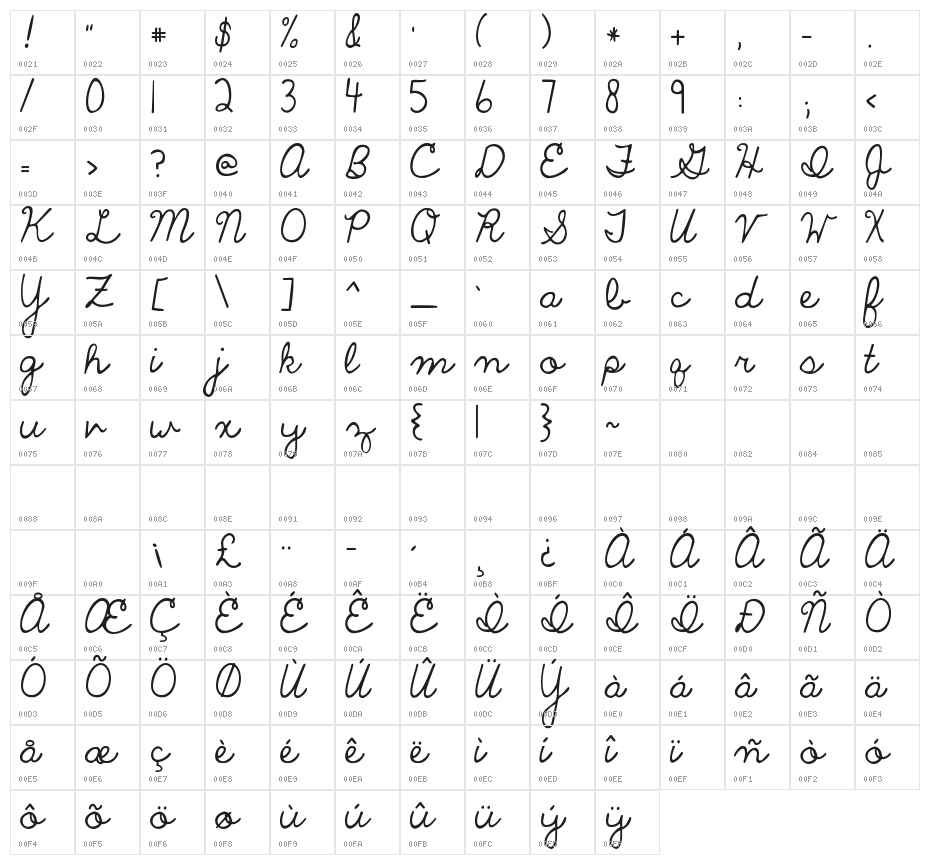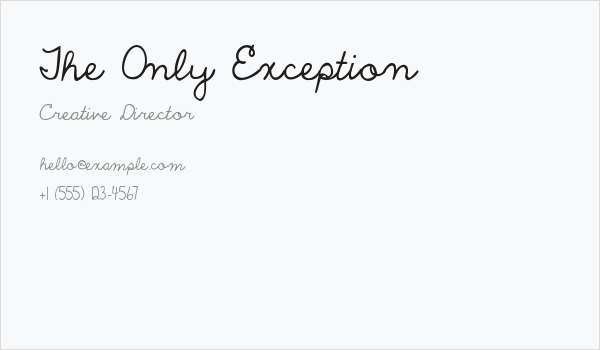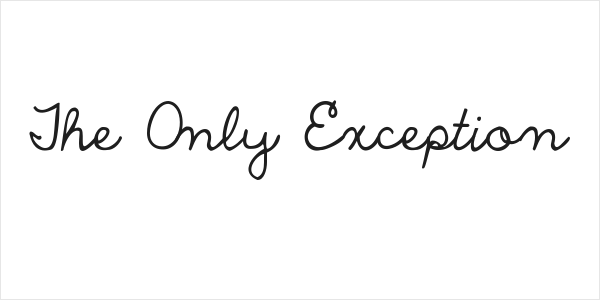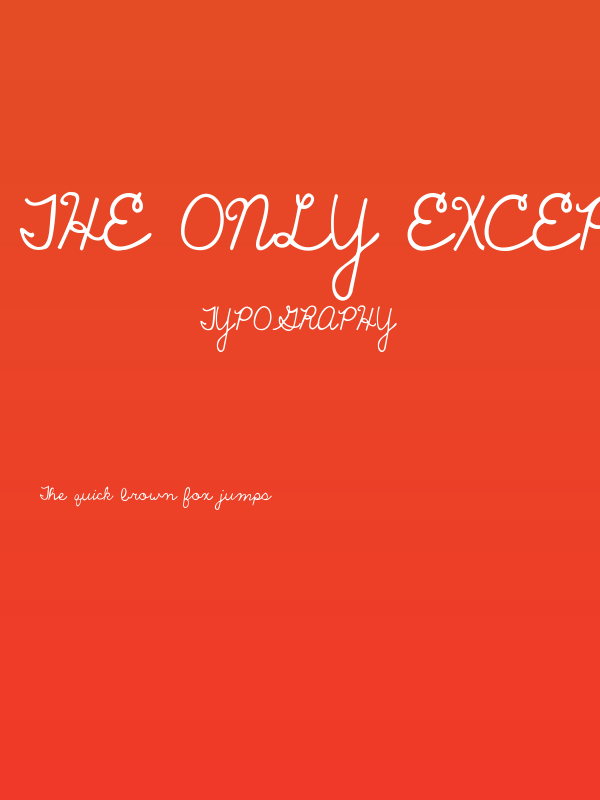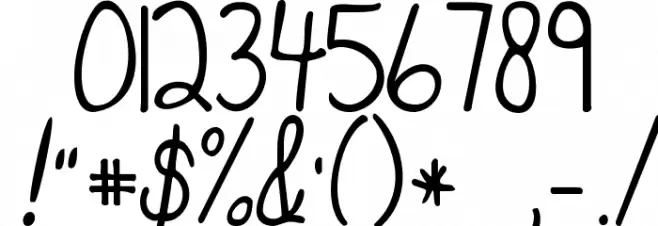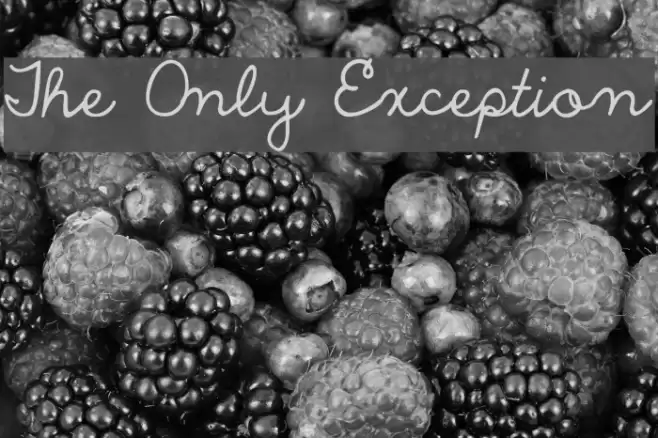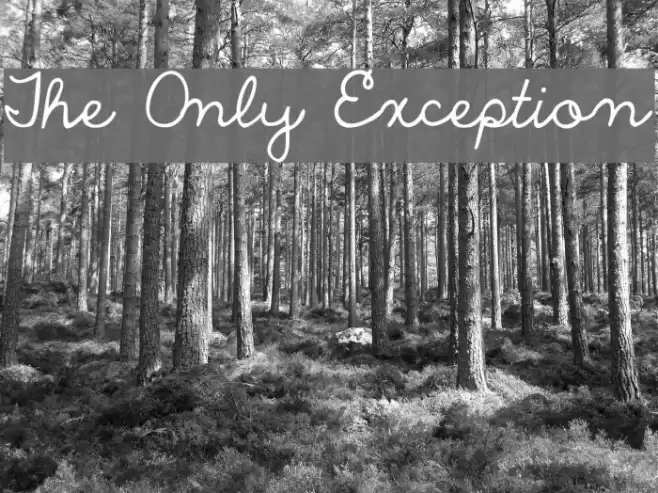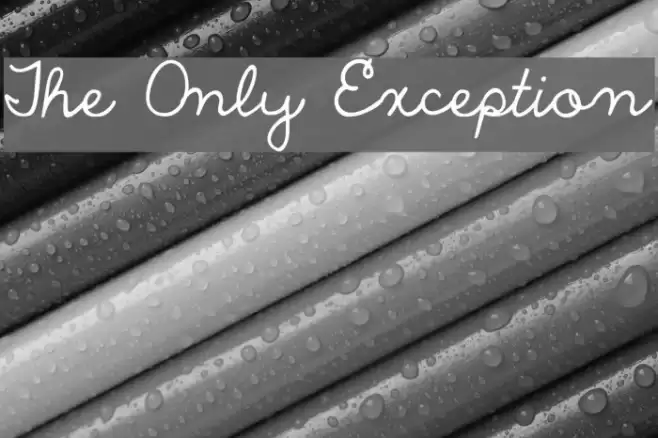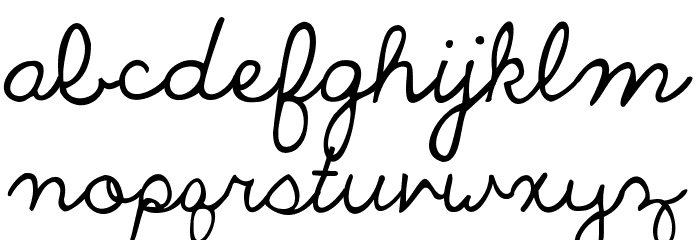
The Only Exception Font
The Only Exception Description
This font features a playful and flowing script style that mimics the natural handwriting of a skilled calligrapher. The uppercase letters are elegantly connected, creating a sense of continuity and fluidity. The lowercase letters maintain a consistent rhythm, with smooth curves and loops that enhance its handwritten appeal. Numbers are clear and easy to read, while special characters are designed to match the overall aesthetic. This font is perfect for projects that require a personal touch, such as invitations, greeting cards, or branding materials that aim to convey warmth and creativity.
| Use Case | Headlines, Logos, Invitations |
| Proposed Projects | Ideal for invitations, greeting cards, personal branding, and creative projects. |